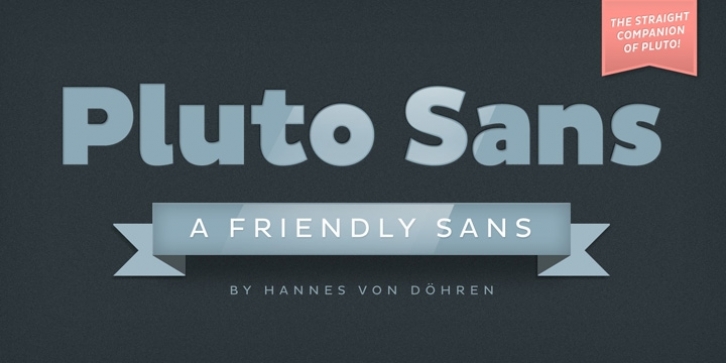
Pluto Sans is a sans serif font family. This typeface has thirty-two styles and was published by HVD Fonts.
Pluto Sans - the straight companion of the Pluto Family - was designed by Hannes von Döhren in 2012. The whole family consists of 16 Uprights and 16 Italics; 32 fonts in all.
This clear Sans Serif family is based on the Pluto architecture and it still has a hint of the friendly feeling the quirky Pluto conveys. With its geometric forms and its large x-height it is perfect for long texts in small sizes and usage in print & on screens. Both Pluto Sans and Pluto have the same range of weights and styles and can perfectly be used together.
Pluto Sans is equipped for complex, professional typography. The OpenType fonts have an extended character set to support Central and Eastern European as well as Western European languages. Each font includes alternate letters, fractions, lining-, tabular numbers, scientific superior/inferior figures and a set of arrows.